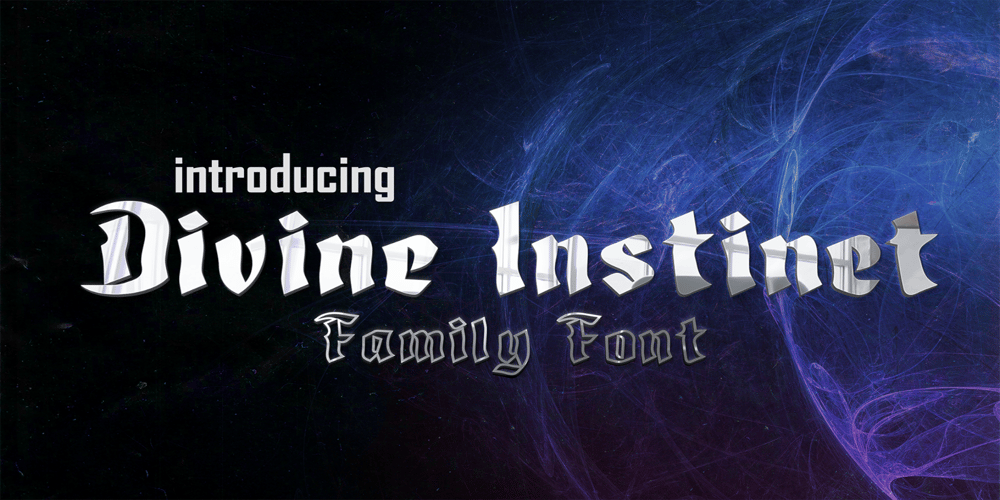
Divine Instinct Font Family was designed by anis maassam and published by AkaliDz. Divine Instinct contains 3 styles and family package options. Divine Instinct is a cool, bold and authentic blackletter font. Masterfully designed to become a true favorite, this font has the potential to bring each of your creative ideas to the highest level!this font contains :custom upper casescustom lower casescustom numbersdefault poncuation marks